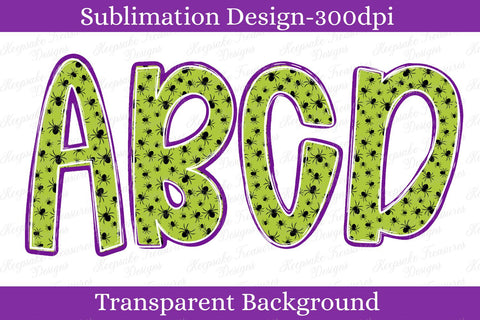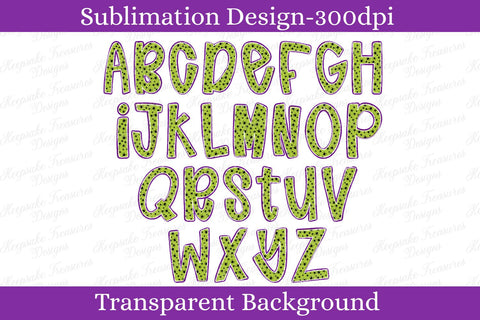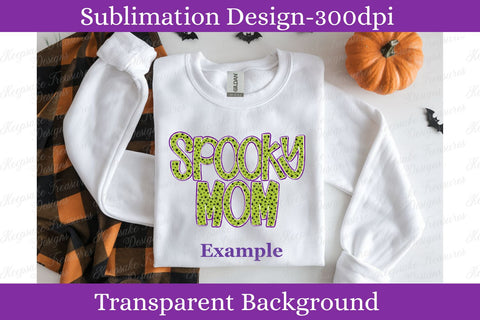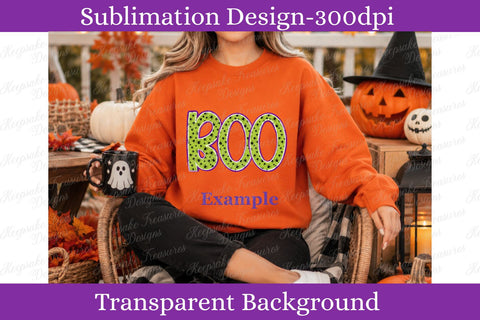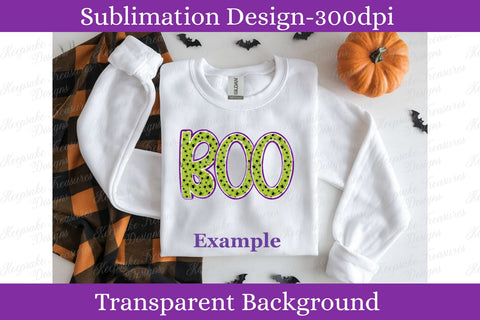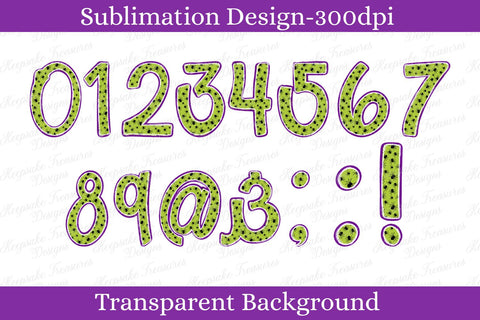
Neon Green Halloween Spider Alphabet PNG, Spooky Alpha Letters Numbers, Halloween Sublimation Font, Personalized Name Design
🕷️Neon Green Halloween Spider Alphabet PNG
Add a creepy-cute pop of color to your Halloween creations with this bold Neon Green Halloween Spider Alphabet! Featuring bright lime green letters filled with tiny black spiders and finished with a fun purple outline, this spooky alphabet is perfect for creating personalized Halloween designs.